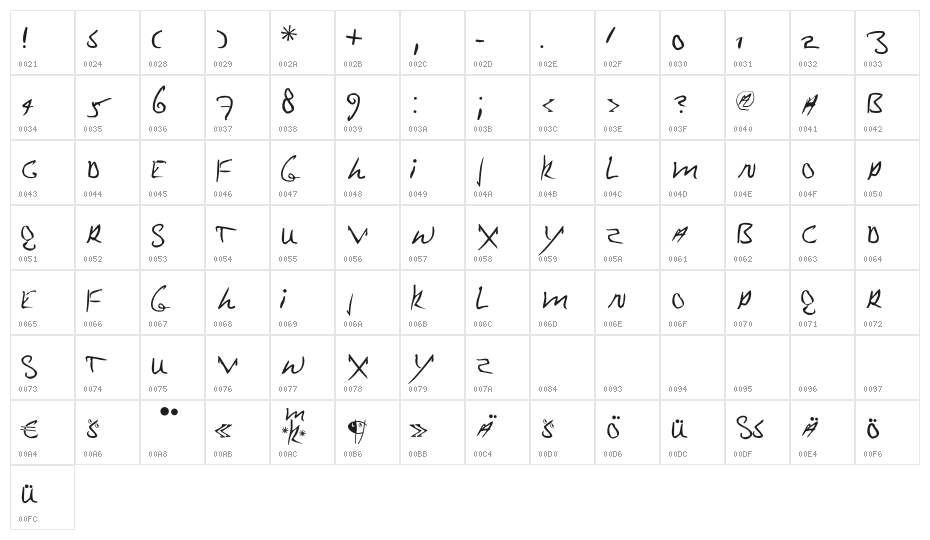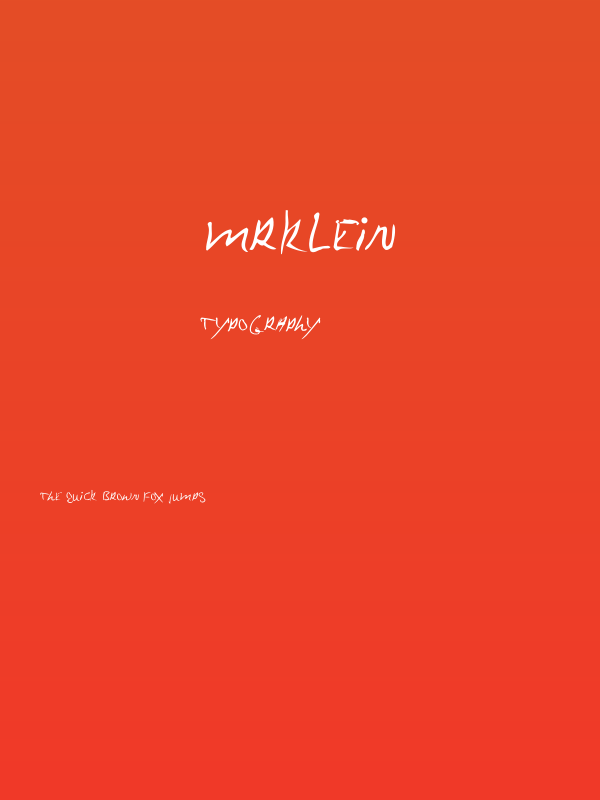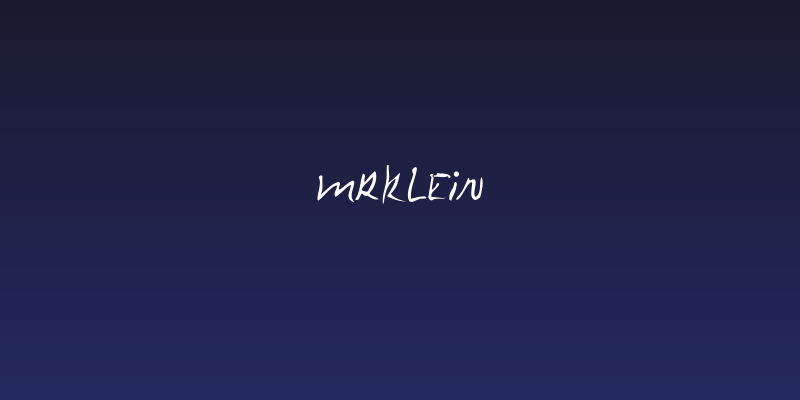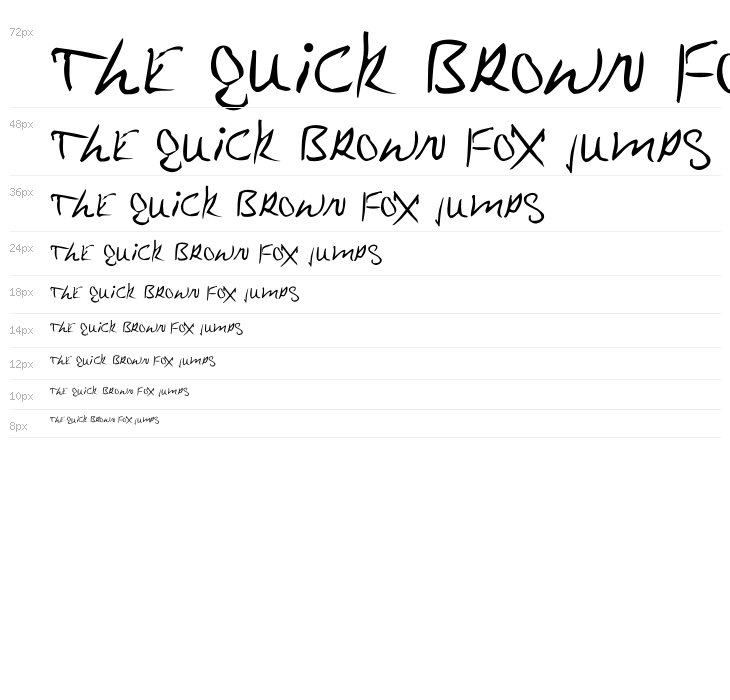
MrKlein Font
MrKlein Description
This font exhibits a dynamic and expressive handwritten style, characterized by its fluid and irregular strokes. The letters are slightly slanted, giving a sense of motion and energy. The uppercase and lowercase letters maintain a consistent style, with some characters featuring unique flourishes and loops. The numbers are similarly styled, with a playful and informal appearance. The special characters complement the overall aesthetic, adding to the font's versatility. This font is ideal for projects that require a personal and artistic touch.
| Use Case | Logos, Headlines, Artistic projects |
| Proposed Projects | Ideal for greeting cards, personal branding, artistic posters, and creative invitations. |